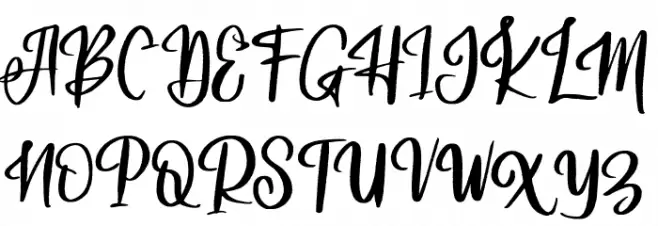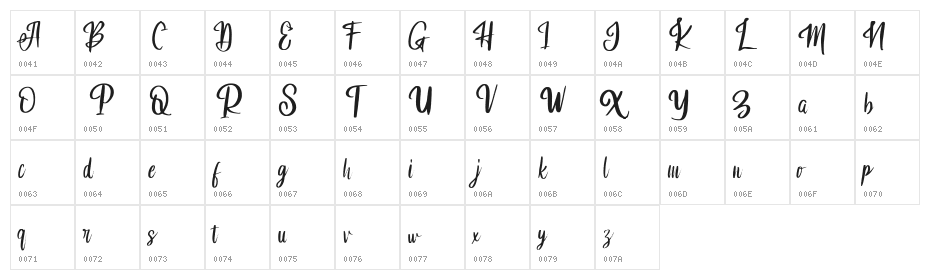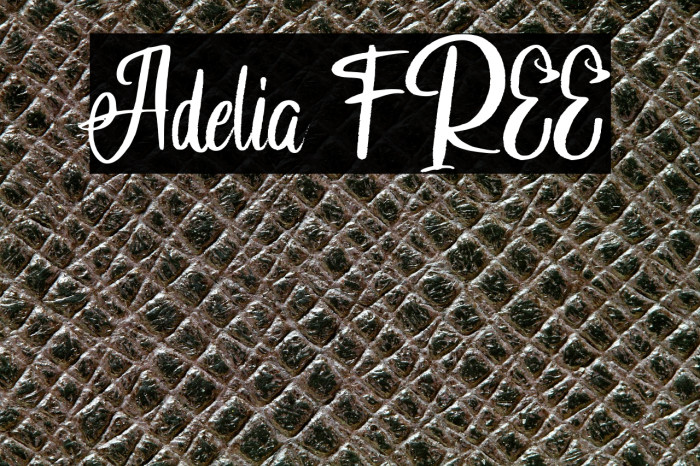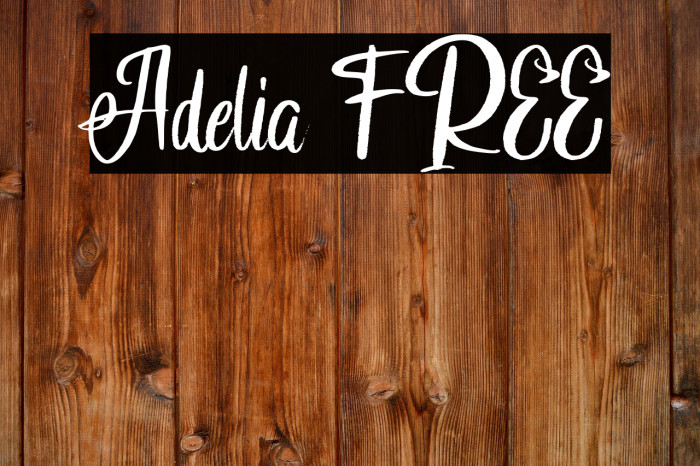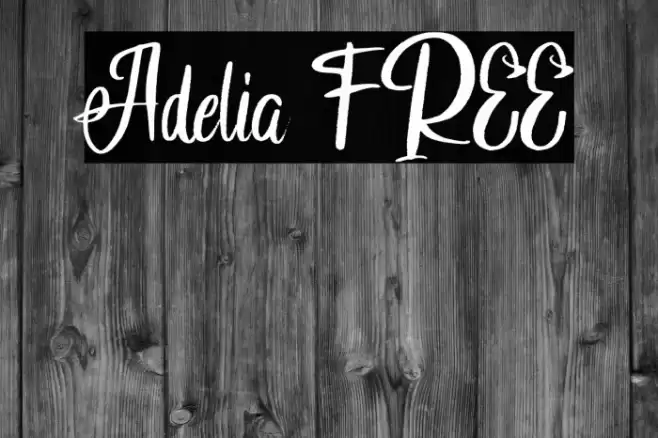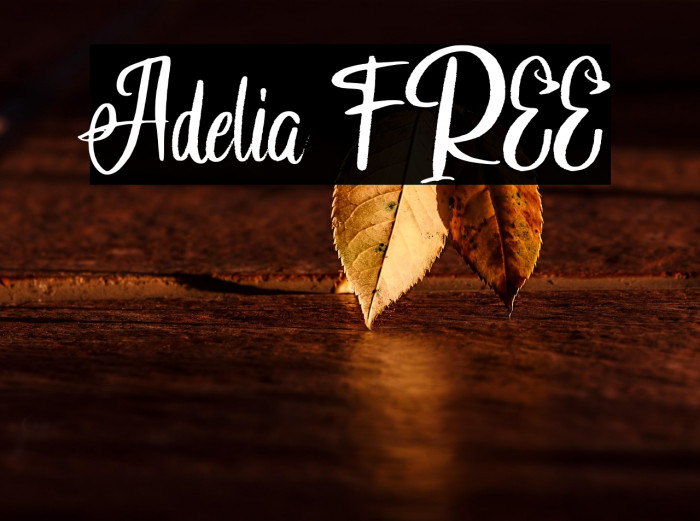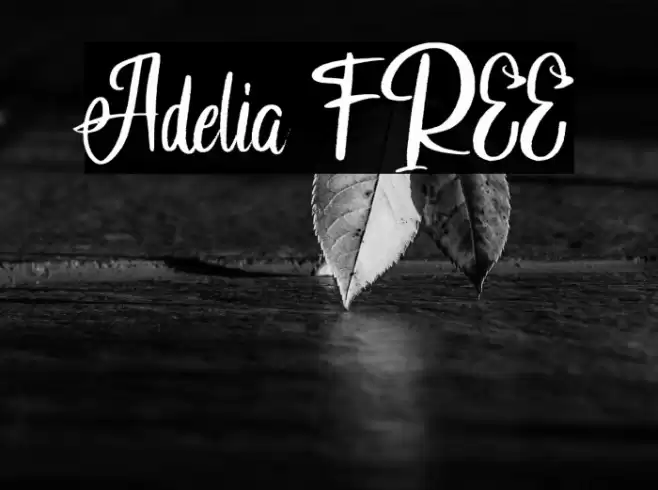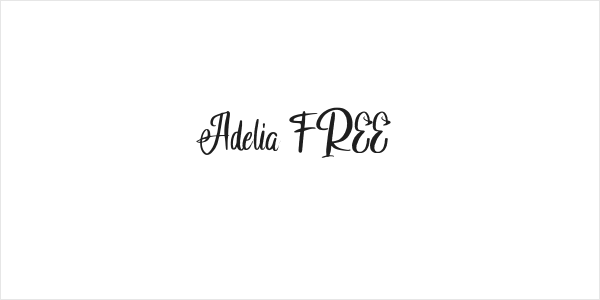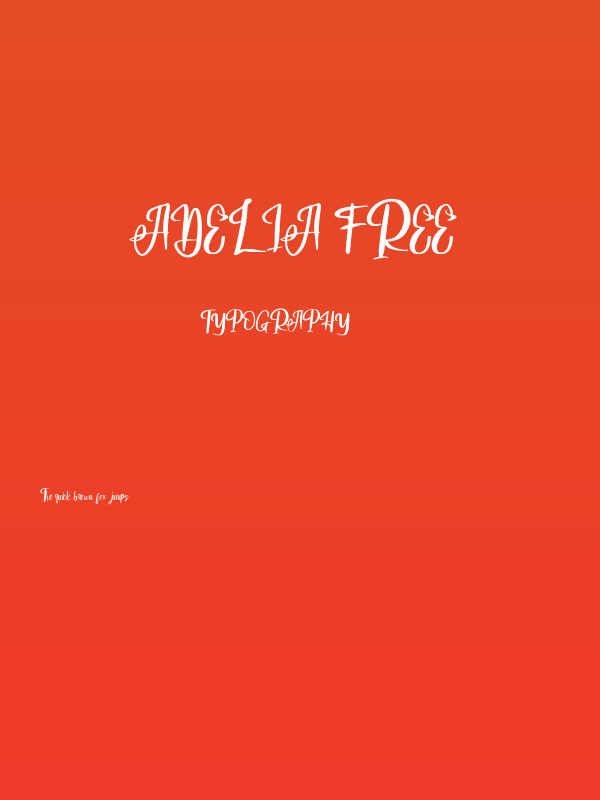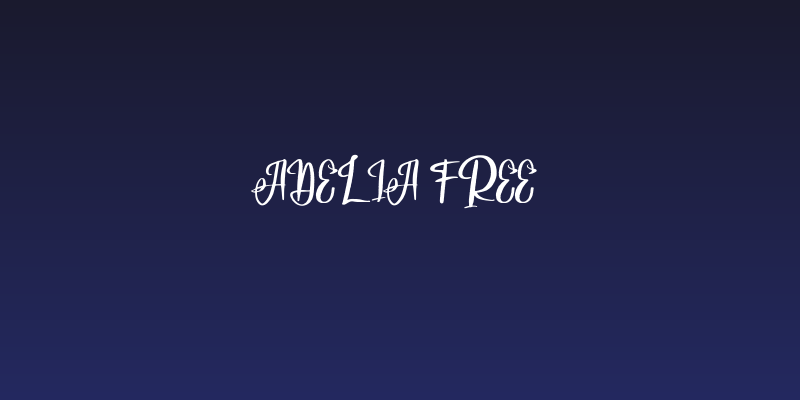
Adelia FREE Font
Adelia FREE Description
This font features a flowing, cursive style with a modern twist. The characters are elegantly crafted with smooth, sweeping lines that give it a handwritten appearance. The uppercase letters are bold and prominent, while the lowercase letters maintain a consistent flow, enhancing readability. The font's design includes playful loops and curves, adding a touch of sophistication and charm. It is well-suited for creative projects that require a personal and artistic touch. The overall aesthetic is both stylish and approachable, making it versatile for various design needs.
Use CaseLogos, Headlines, Decorative text
Proposed ProjectsIdeal for wedding invitations, greeting cards, branding, and social media graphics.